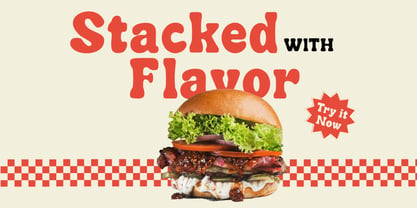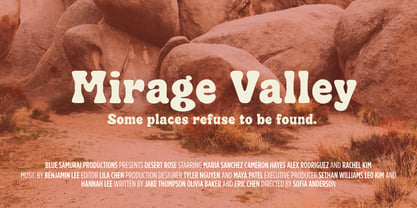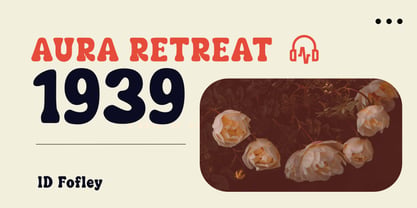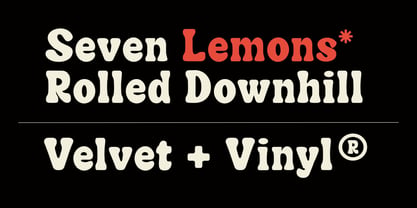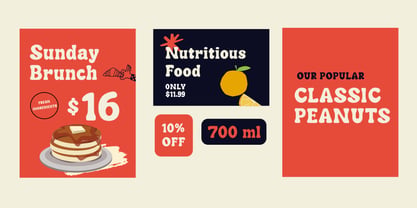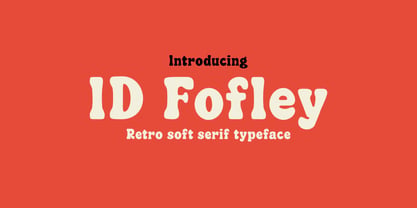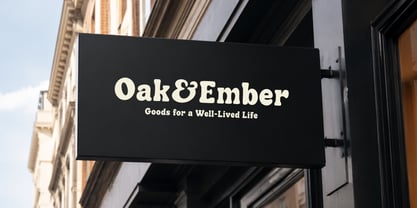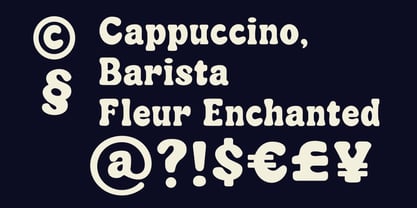
ID Fofley
by Ekaunik Dz
The ID Fofley Font Family was designed by Swati Bhatnagar and published by Ekaunik Dz. ID Fofley contains 1 styles. More about this family
ID Fofley draws inspiration from the bold, rounded display serifs of the 1960s and 1970s. Its soft curves, generous proportions, and playful letterforms create a warm, nostalgic character while maintaining a distinctly modern rhythm. Echoing classics such as Cooper Black it is ideal for posters, headlines, branding, and expressive editorial design.
Designers: Swati Bhatnagar
Foundry: Ekaunik Dz